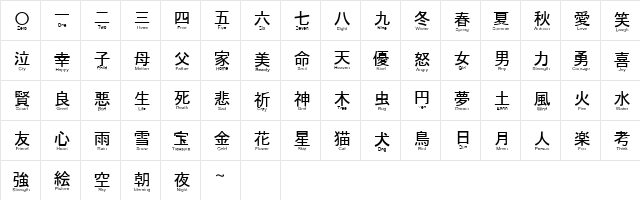
JayCons is a composed and adaptable typeface that performs quietly and consistently across a wide range of design contexts.
Pro Tip: Use JayCons in both headline and body roles to test its range before committing to a single application.